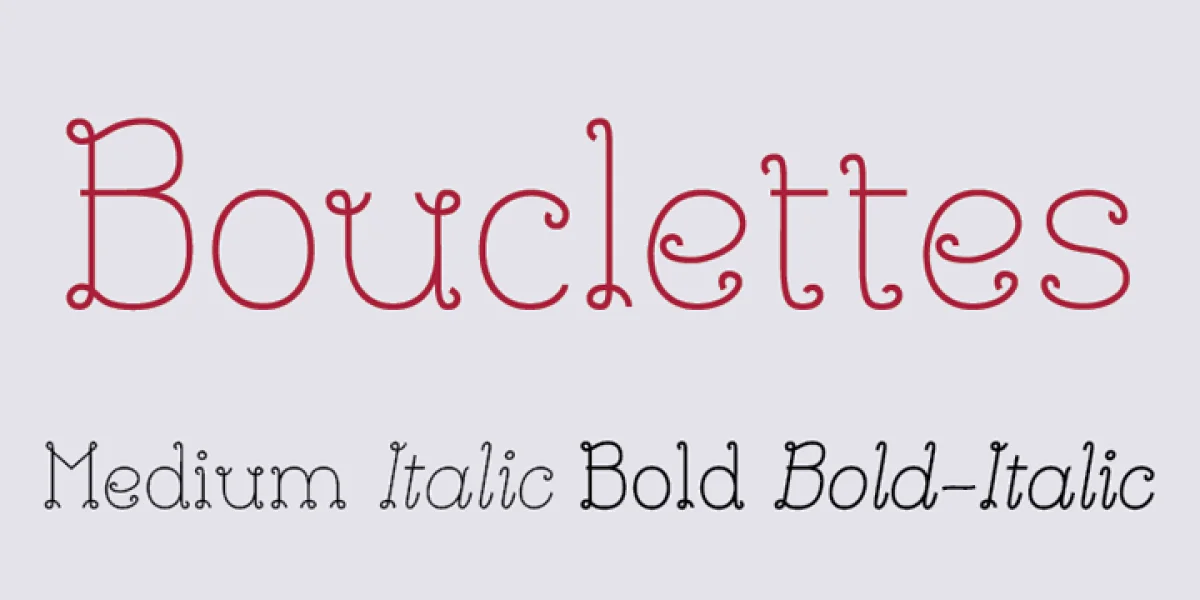
Bouclettes is a decorative typeface family with funny and original serifs. It creates a casual and playful vibe to your documents : magazines, brochures, flyers, advertising, greeting cards, logotypes. The combination between the two weights and italics is very interesting to work with Bouclettes. It looks better in large sizes. This font is free for personal use only. To purchase the full font (with Bold and Italics) or a commercial license, visit: http://www.myfonts.com/fonts/jbfoundry/bouclettes/